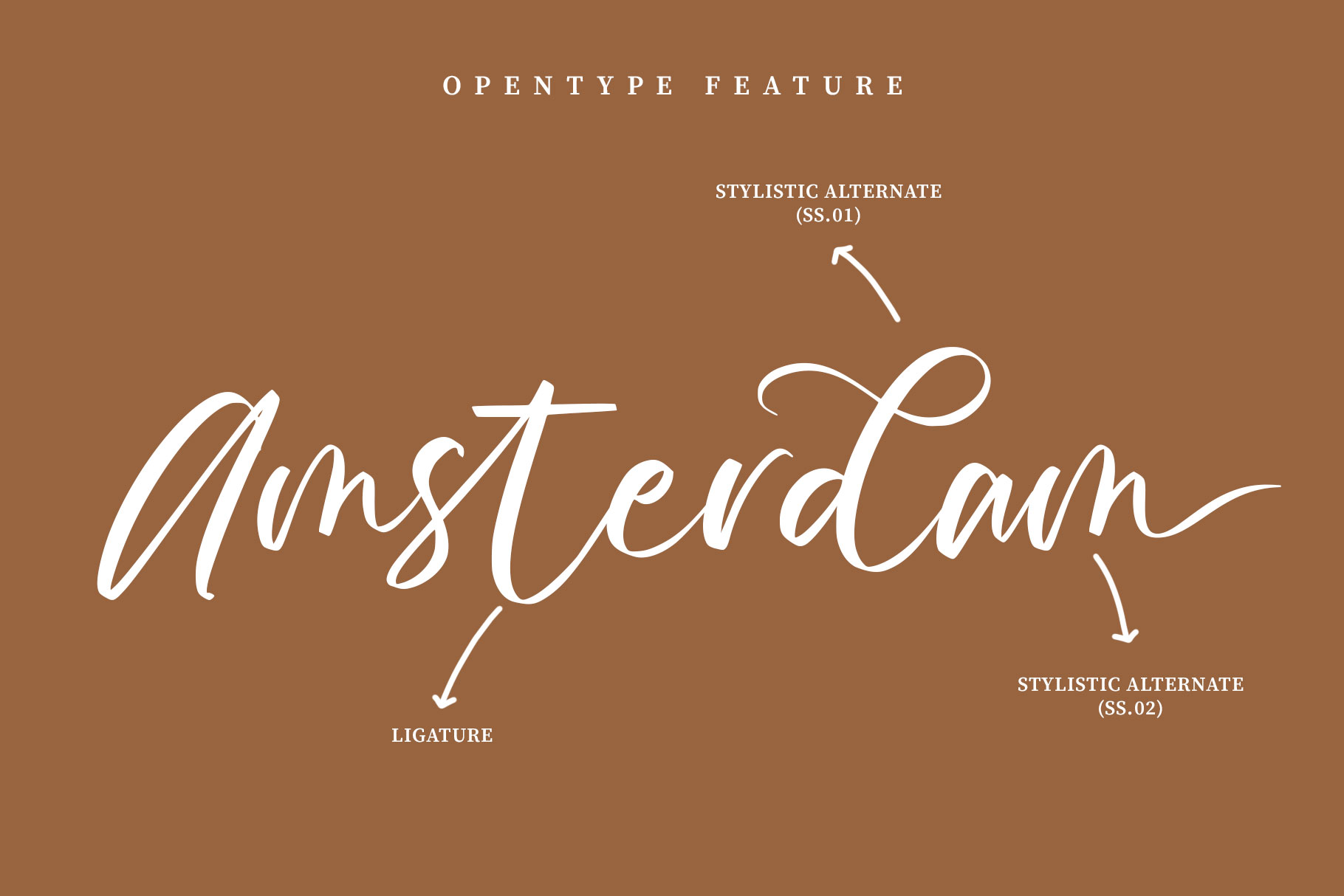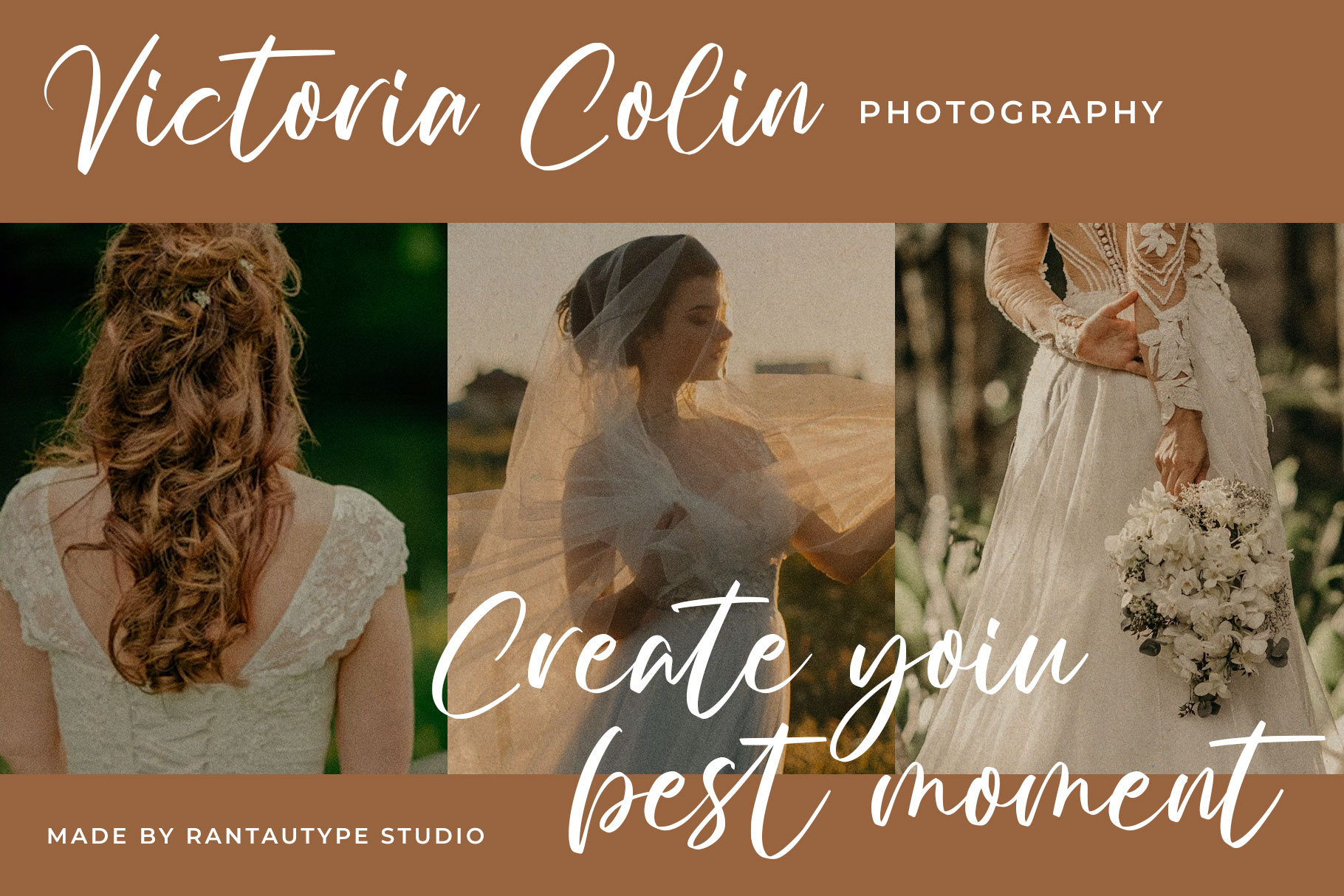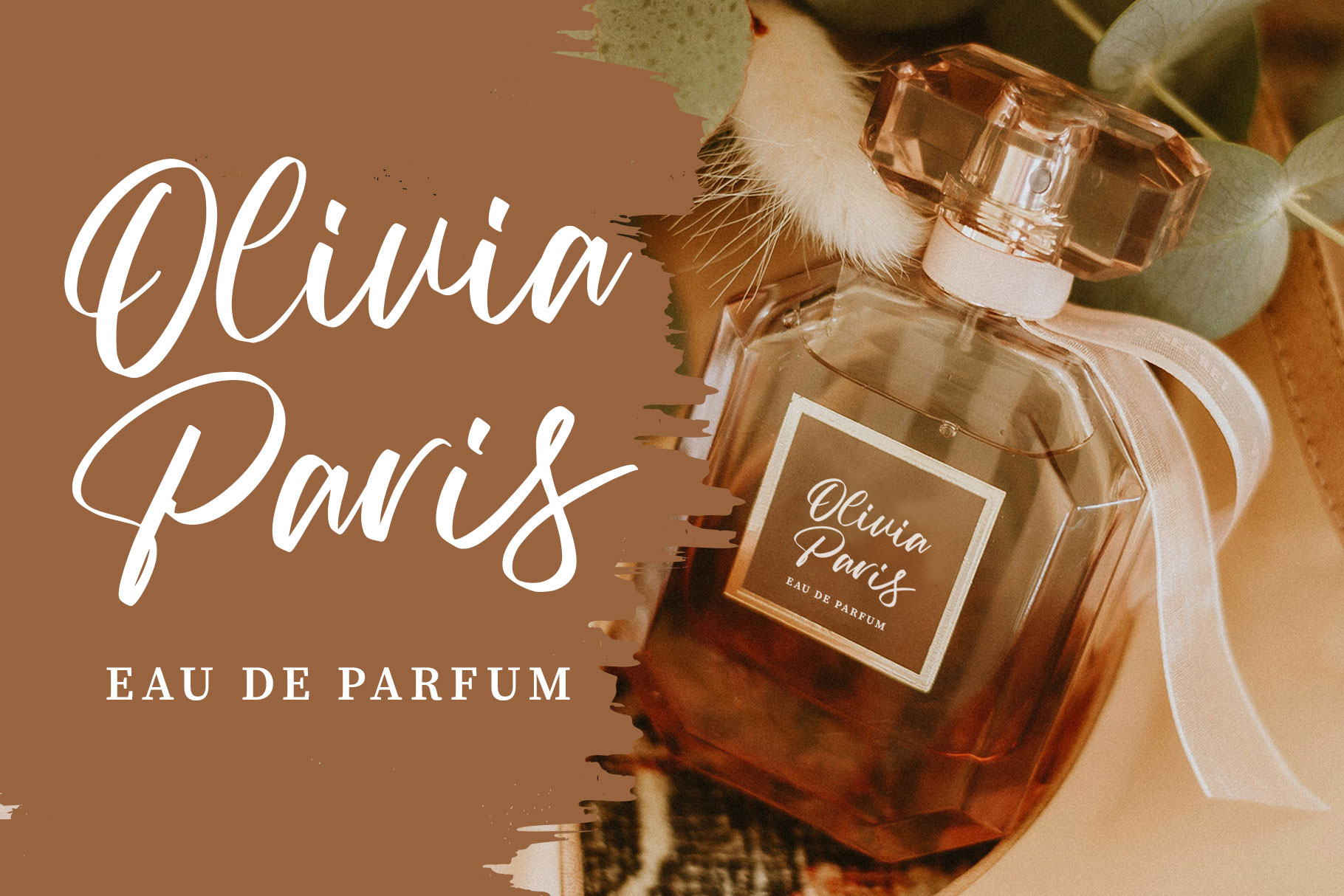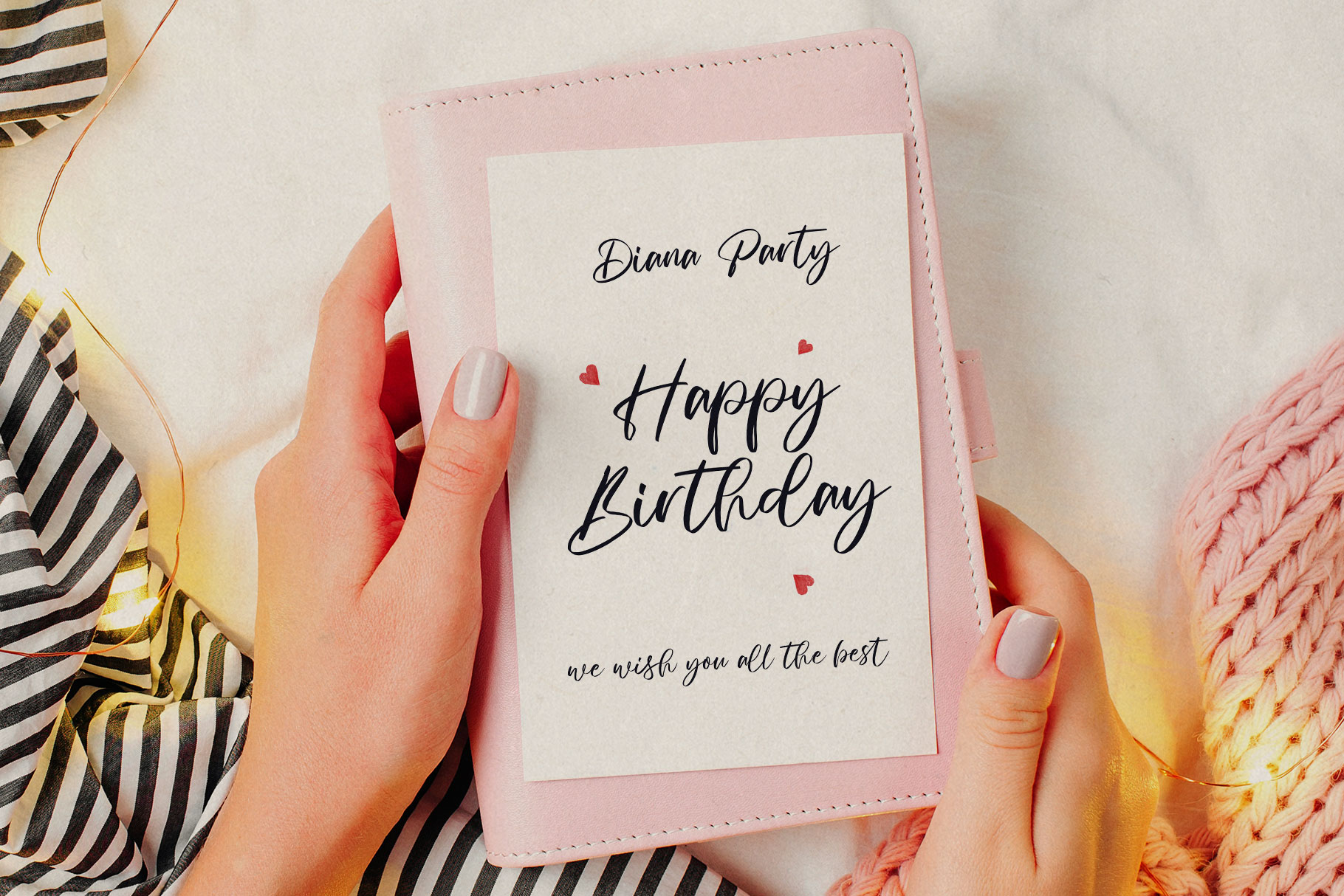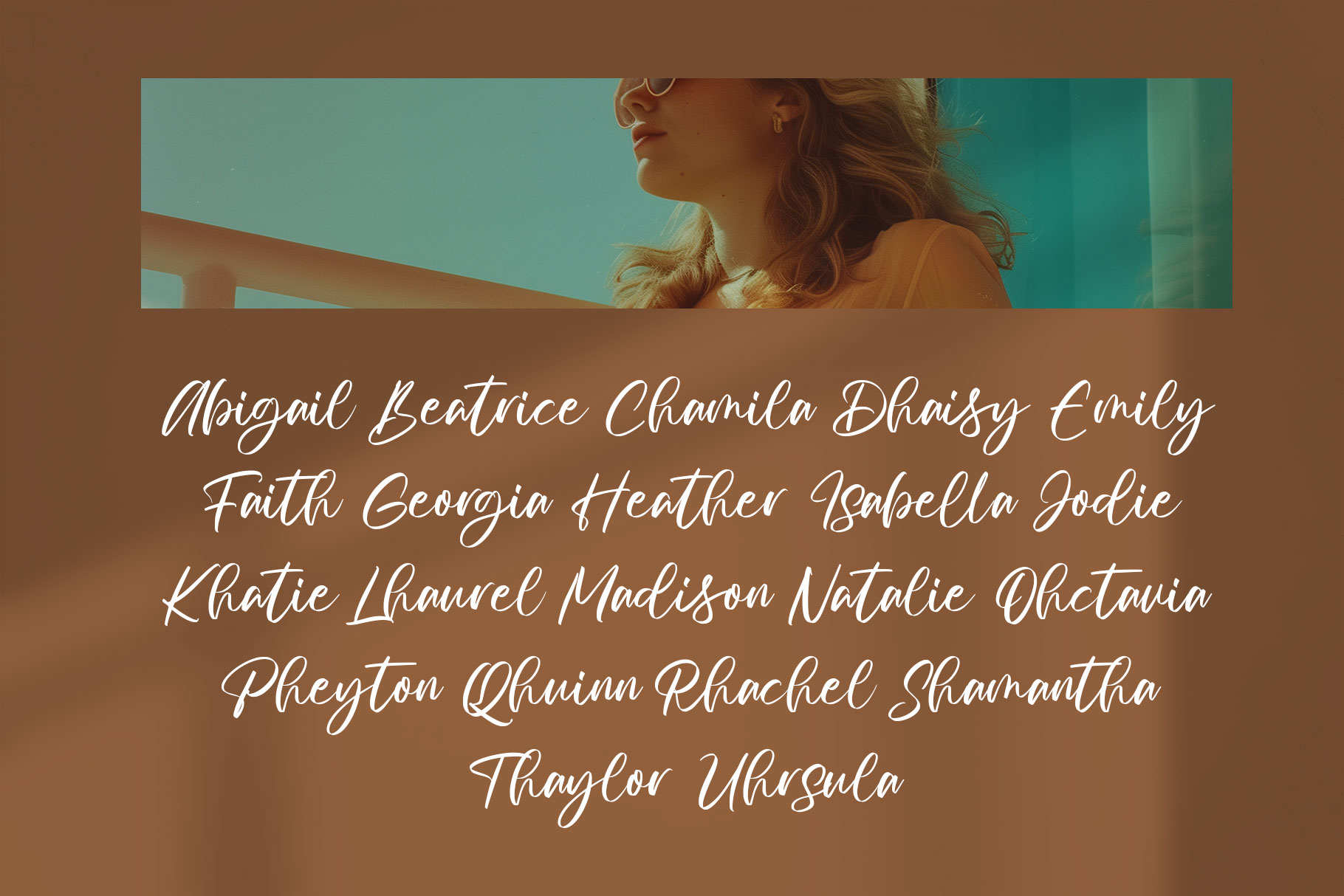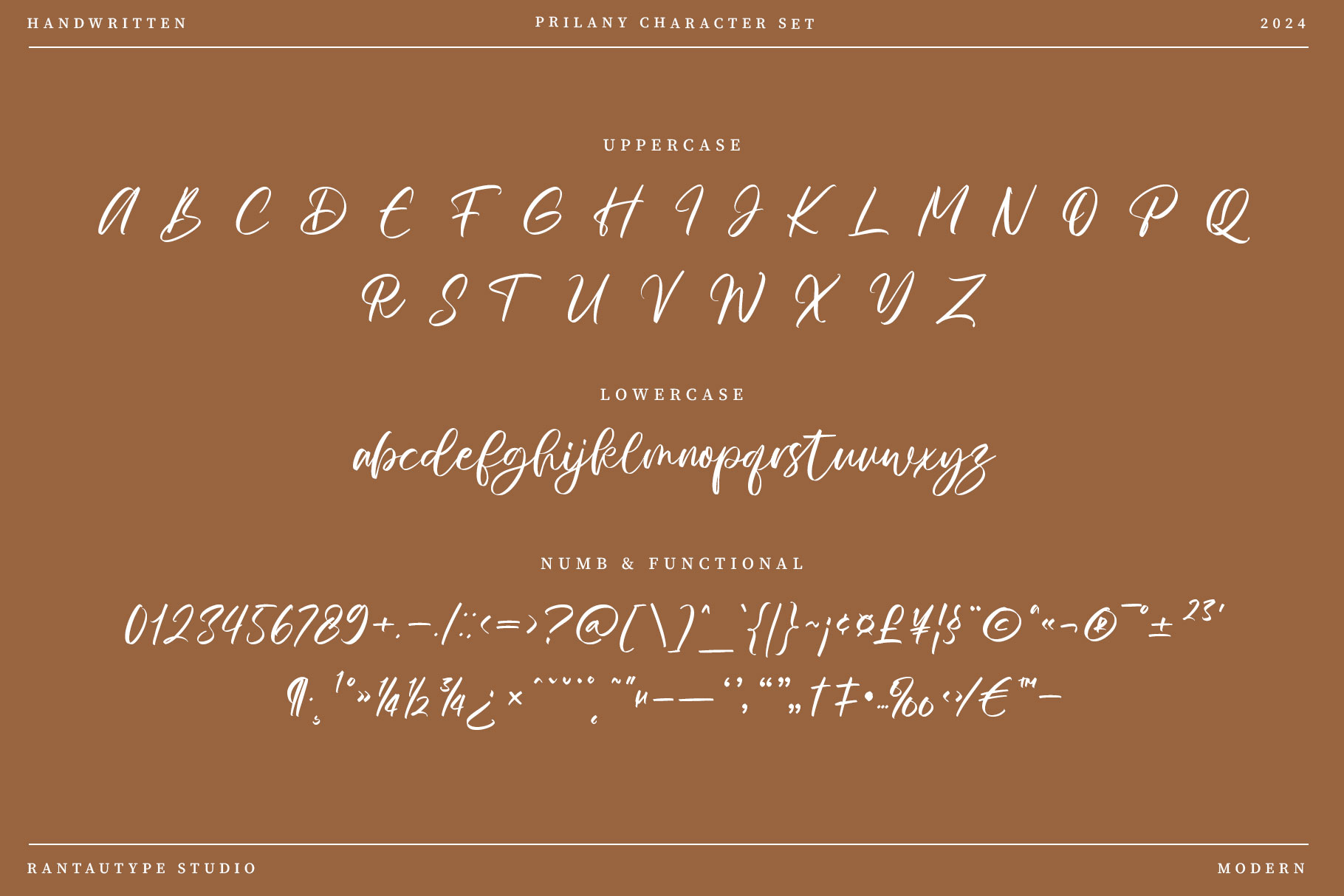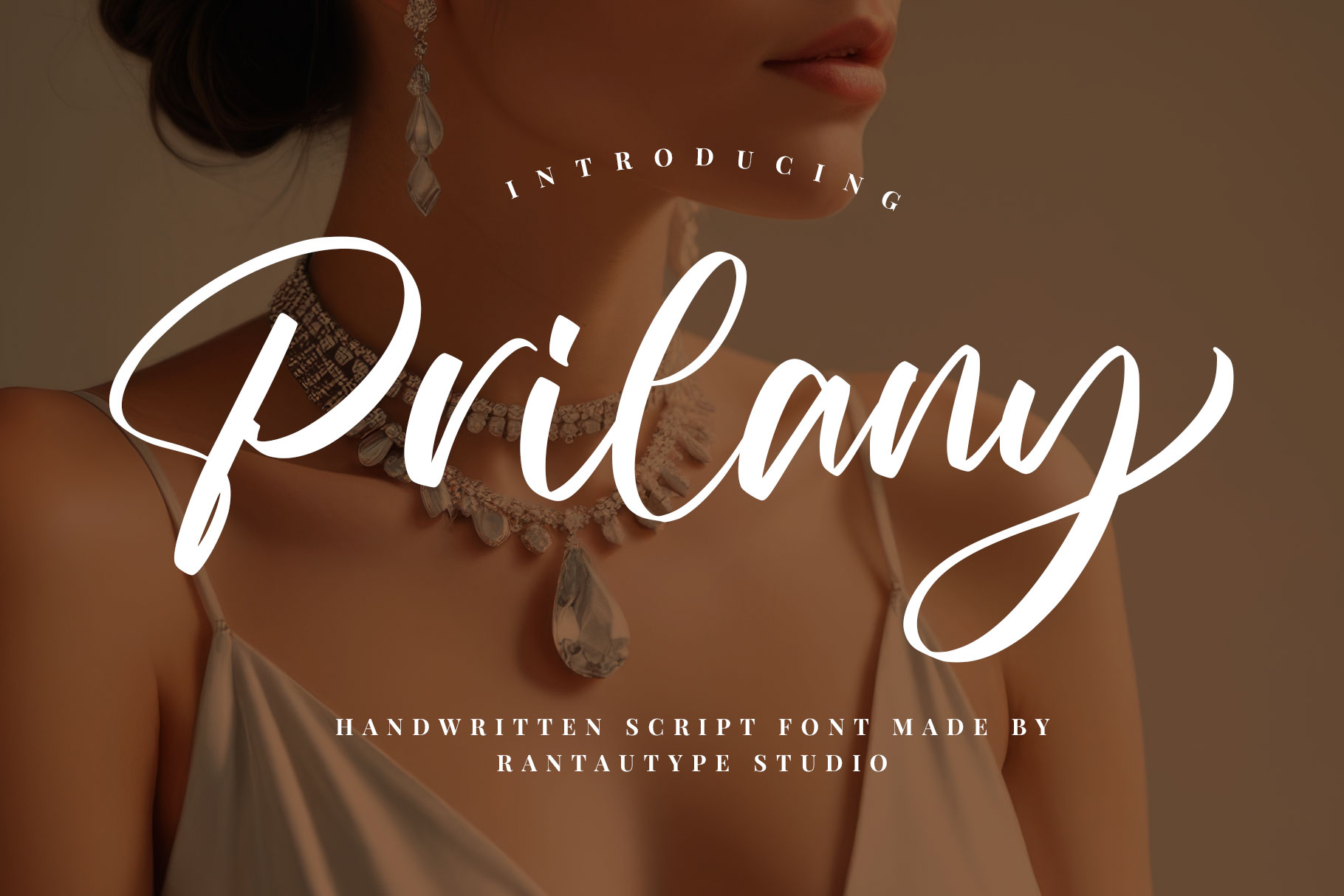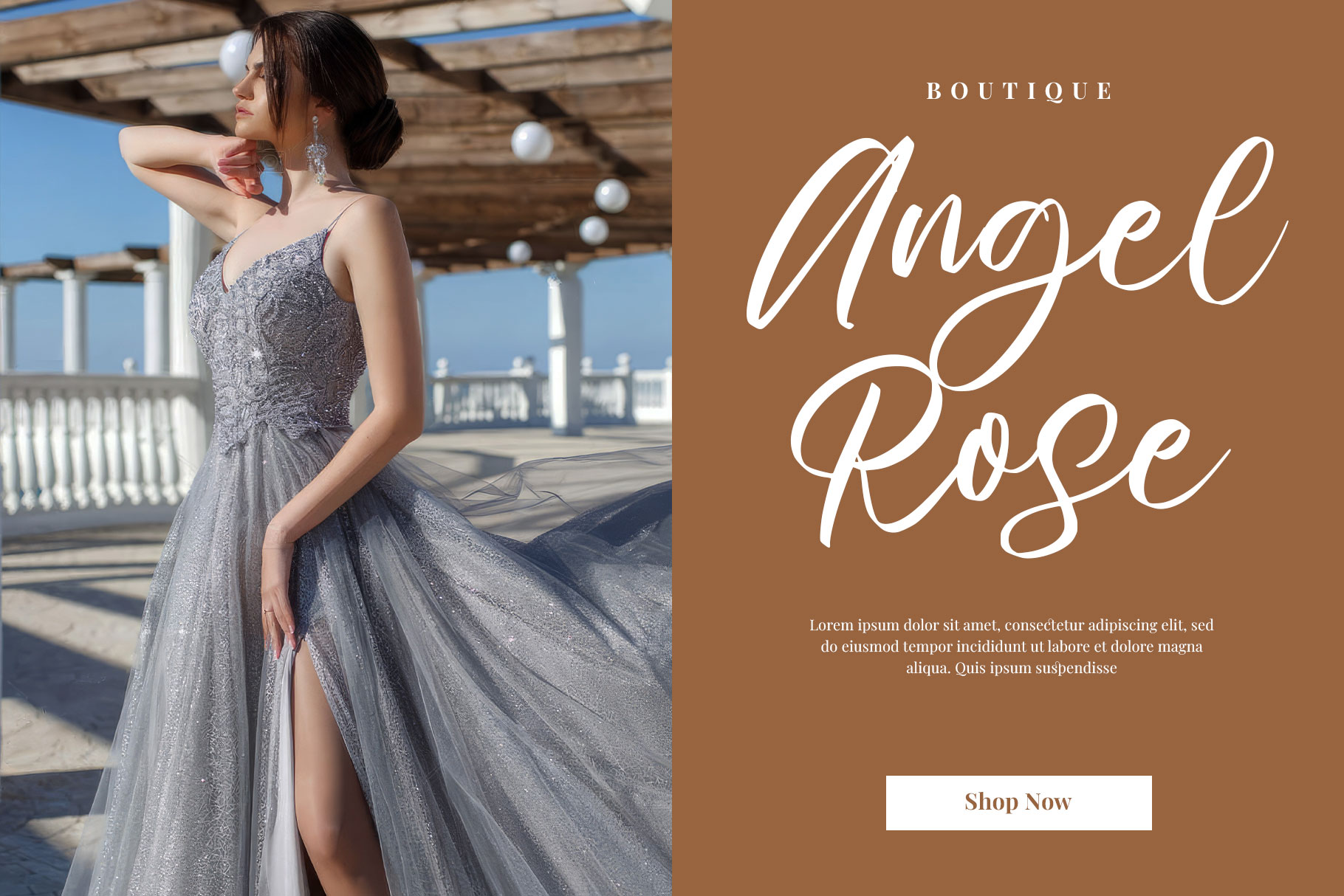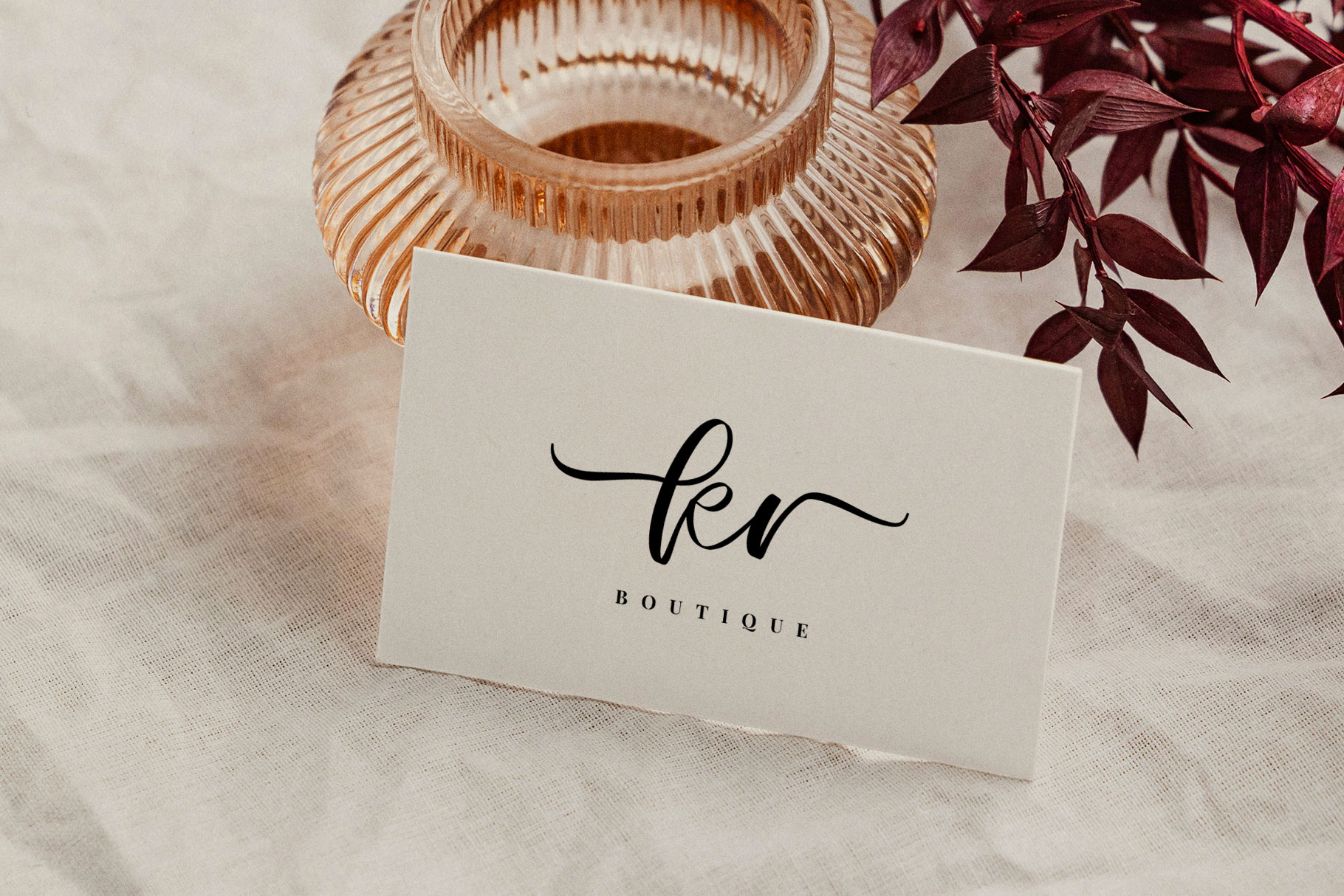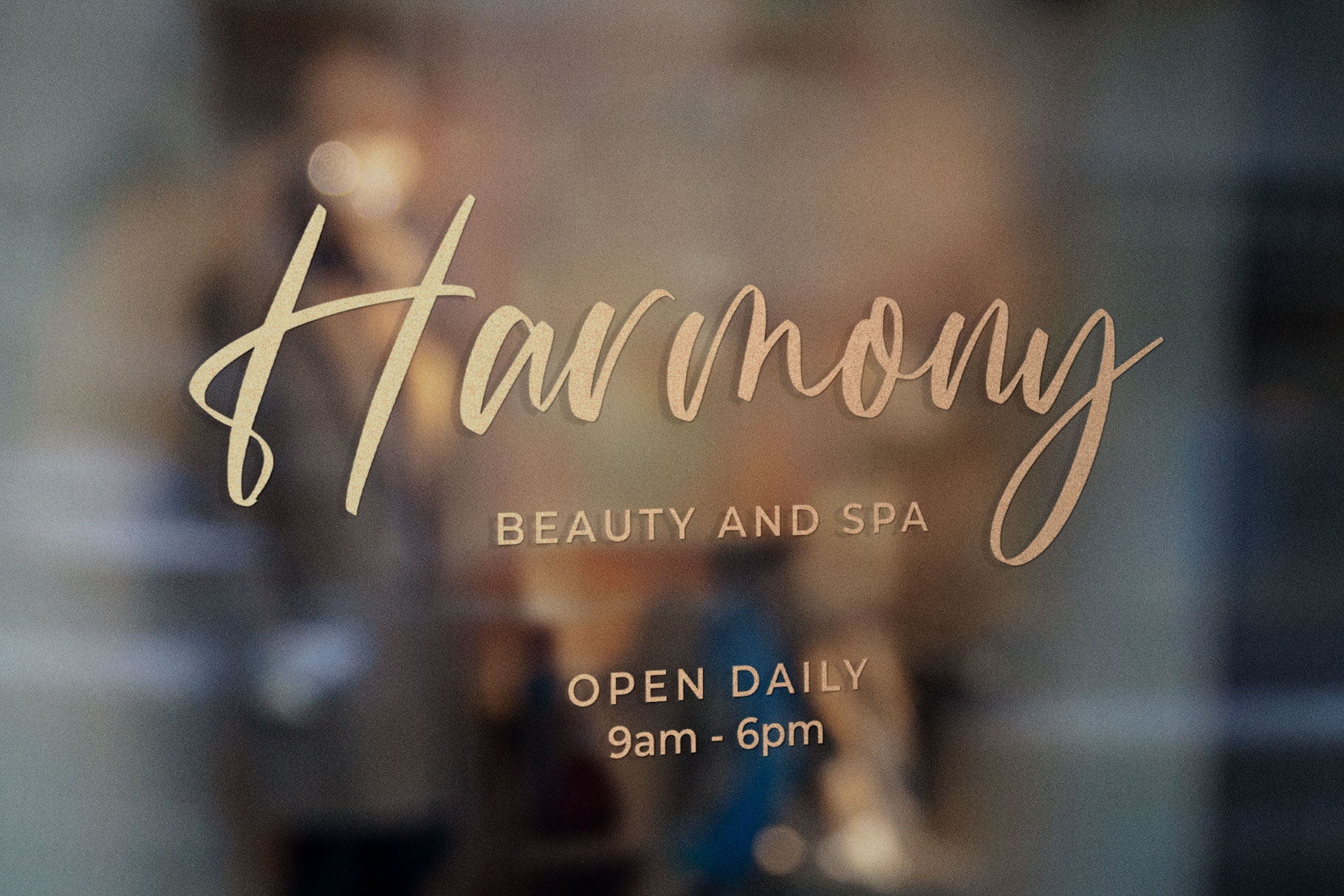
Prilany Handwritten Script Font
Prilany is beautiful handwritten font with modern look. Prilany come with elegant character to make your design project awesome. We keep this font modern, stylish, elegant and easy to use.
Prilany is a beautiful choice for any creative endeavor, modern, chic, lifestyle design such as logotype, title, cover, branding, invitations, wedding designs, display and magazine, social media posts, advertisements, printed quotes, product packaging, corporate brand, product designs, labels, photography, watermarks, special events and any other project with handwritten touch.